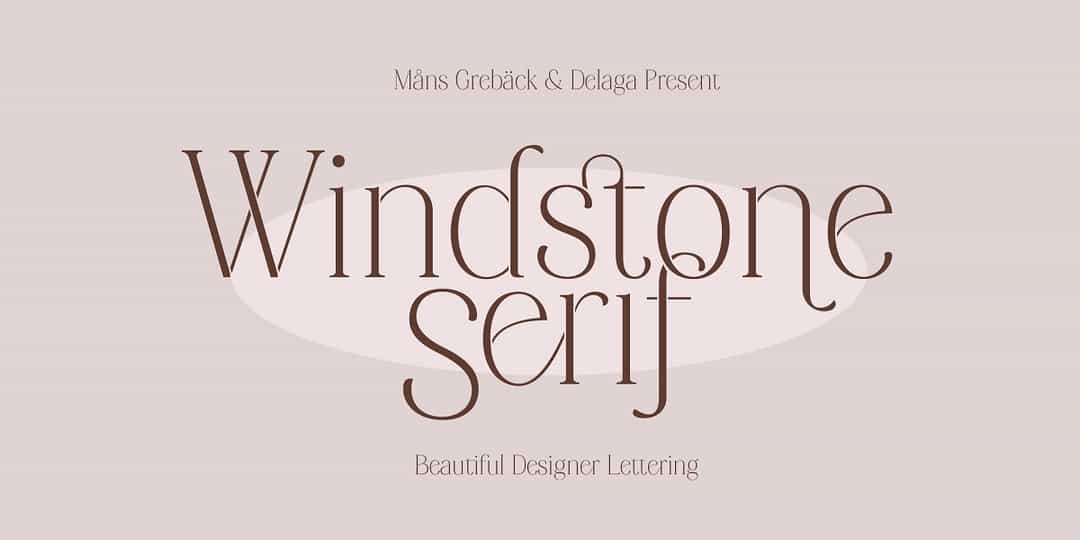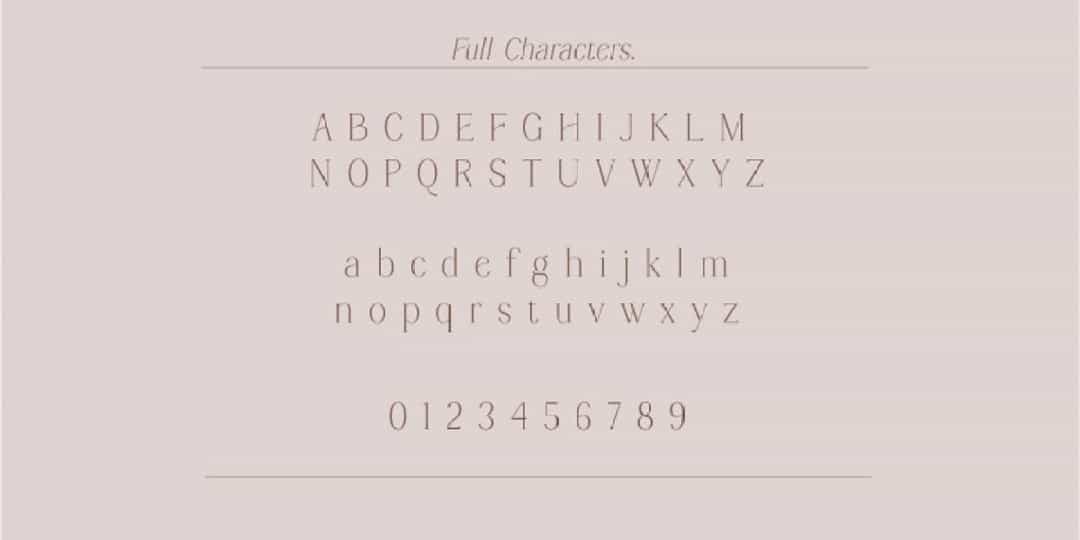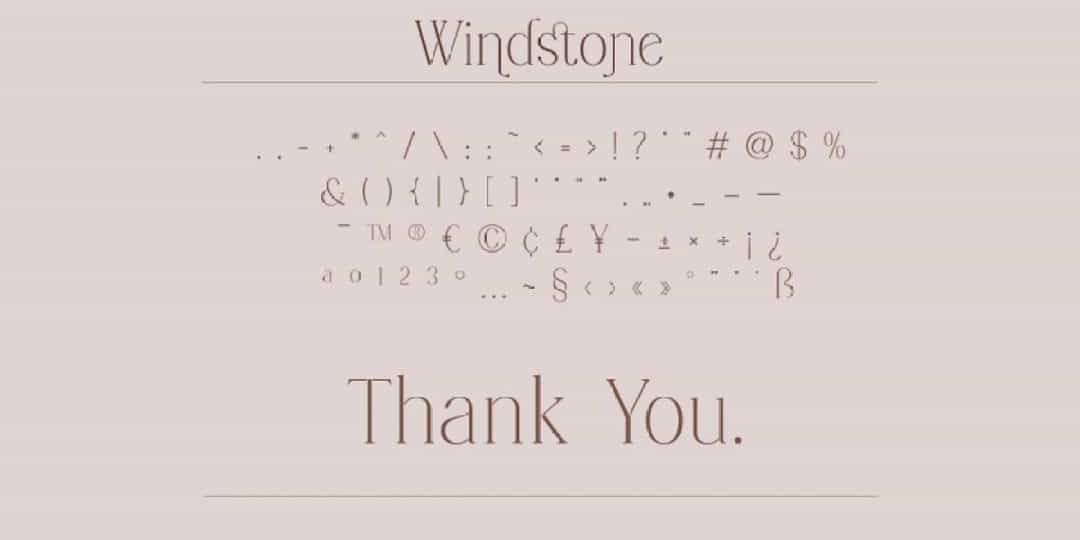
Windstone Serif is a classic yet delicate font with romanticism and luxury in spades. Boasting organic letterforms that capture its romanticism and luxury perfectly, Windstone Serif lends itself to projects needing some class or elegance in their designs. Offered both Regular and Italic designs for ease of use and customization options for extra creativity in design projects.